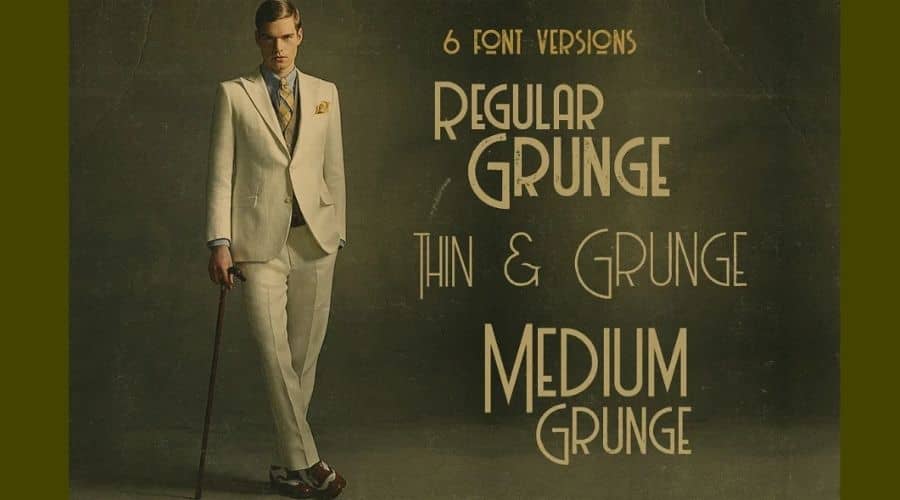
Billionaire Font
We are presenting Billionaire! Jumbo Design created it and shared it on November 9, 2019. This Font is a six-style bespoke sans serif font in a retro or nostalgic style. Regular and Grunge, thin and thin Grunge, and medium Grunge are the styles available.
The Billionaire font family is a sans-serif in the Art Nouveau style. This beautiful Font is categorized under the display fonts. This typeface belongs to the Billionaire Medium Grunge font family. Medium Grunge is a Font subfamily.
Because this Font is PUA encoded, you can easily access all of the fantastic glyphs and ligatures! Uppercase, numbers, and punctuations are among the standard characters supported. There are no lowercase or alternative characters in this sentence. The Font is available in OTF and TTF file types. Thanks to Jumbo Design for making this stunning display font with the vintage touch within it.
The Font has a lovely old feel about it. It’ll lend a touch of elegance to whatever design project you’re working on! The Billionaire typeface is ideal for logotypes, clothes, labels, and badges. This Font is perfect for designing apparel, badges, and logotypes.
The typeface is great for any form of retro design because of its retro vibes. This typeface should be your first pick if you’re creating a retro poster for music or a movie. This typeface is also a good choice if you want to add a retro touch to your brand billboards or advertisements.